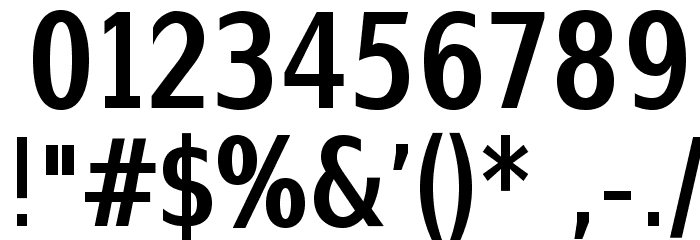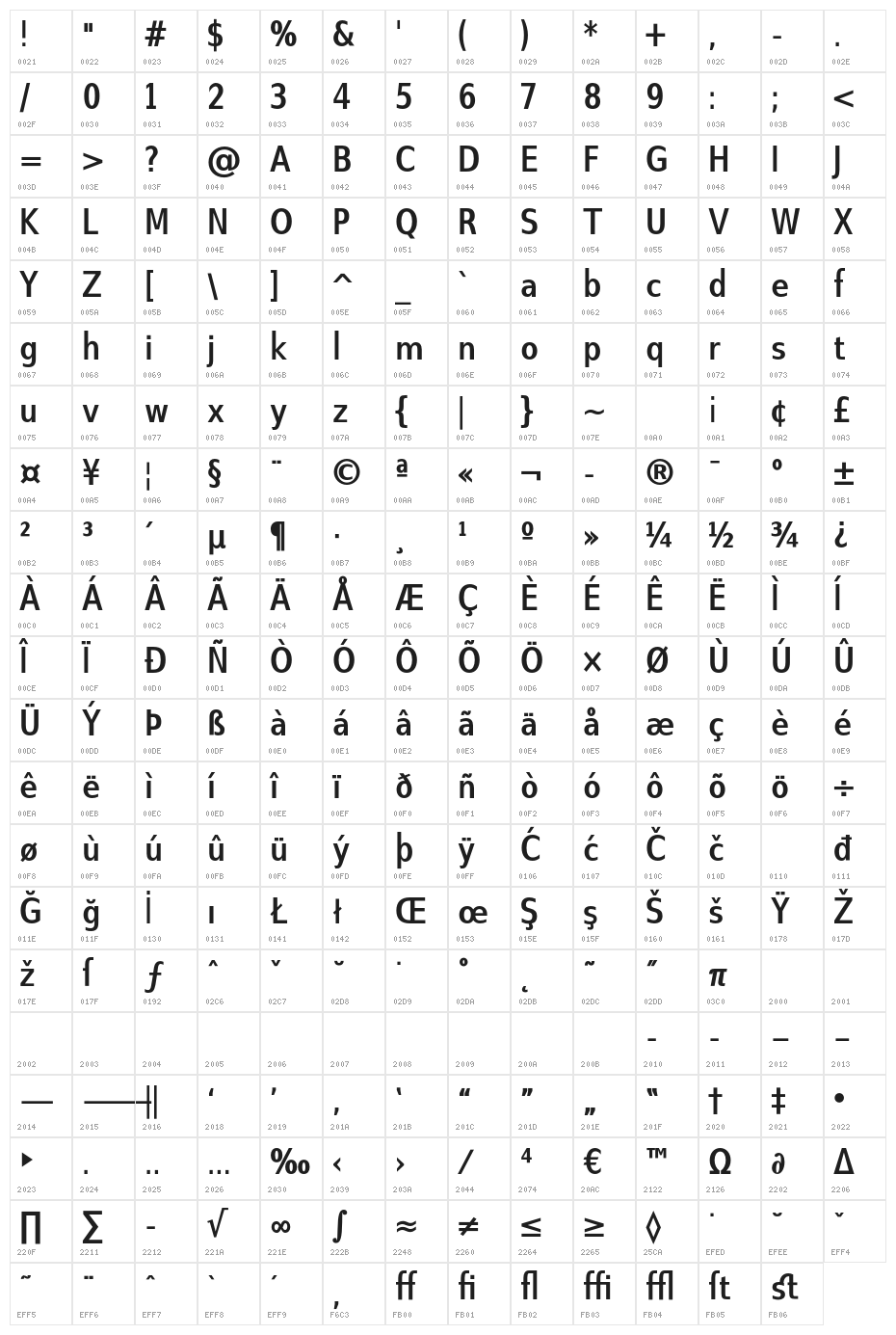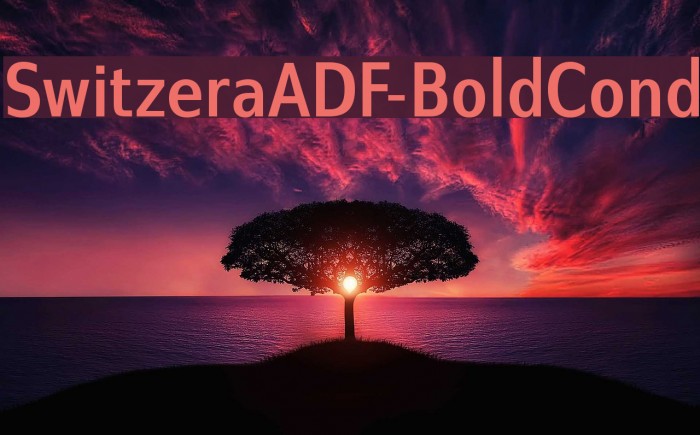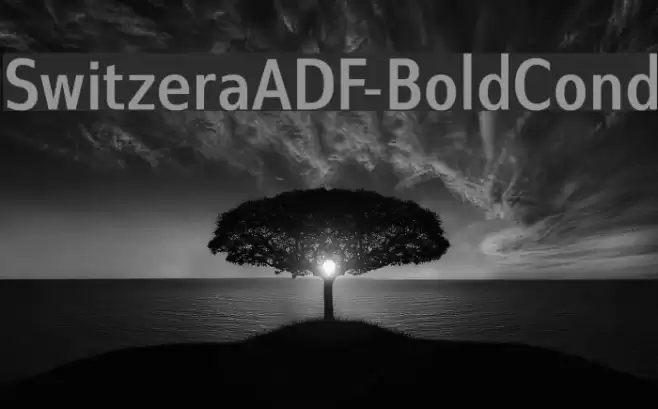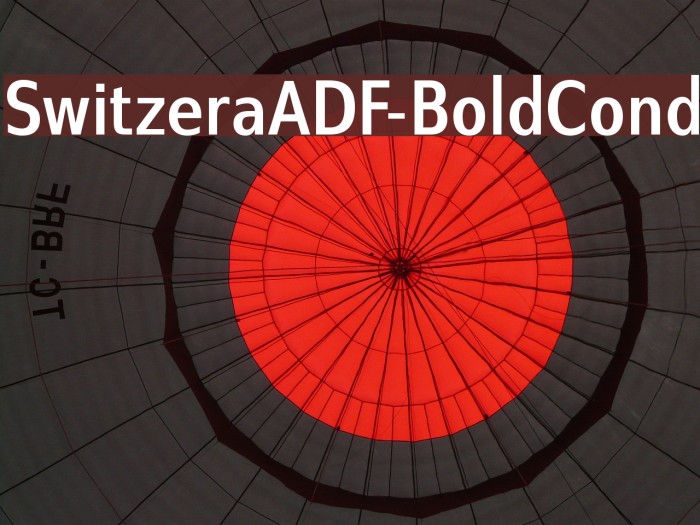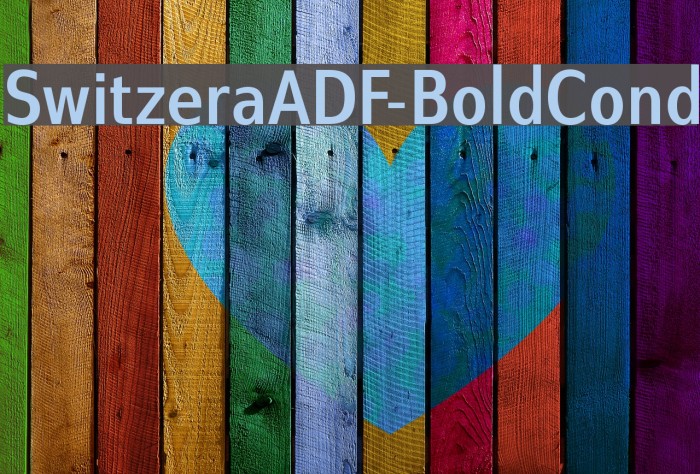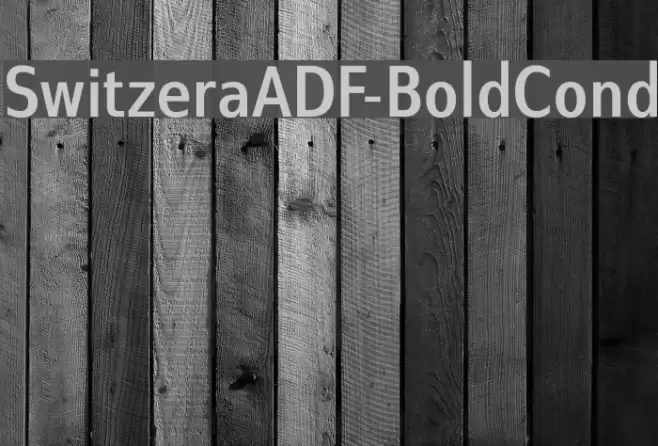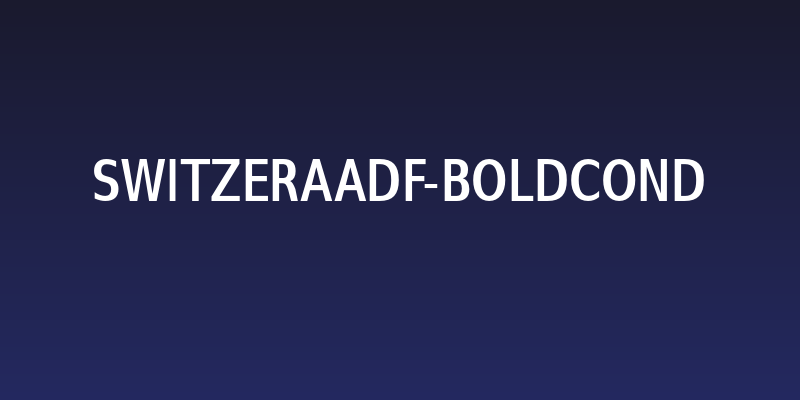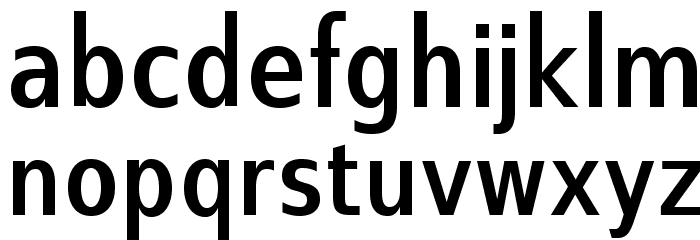
SwitzeraADF-BoldCond Font
SwitzeraADF-BoldCond Description
This font exhibits a clean and modern sans-serif style, characterized by its bold weight and slightly condensed width. The characters are well-balanced with a consistent stroke thickness, providing a uniform appearance across both uppercase and lowercase letters. The numerals and special characters maintain the same boldness, ensuring readability and visual harmony. The overall design is straightforward, making it suitable for a variety of applications where clarity and impact are essential.